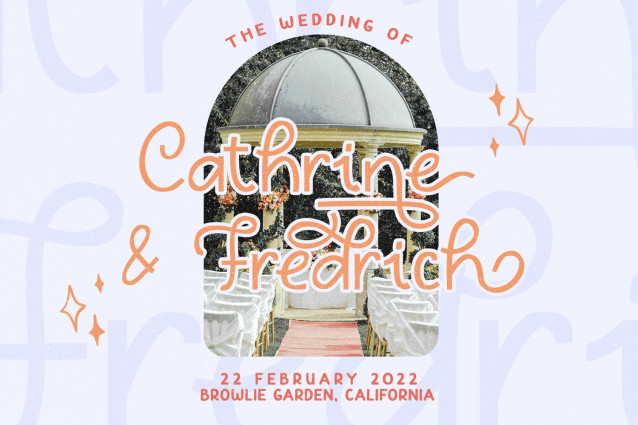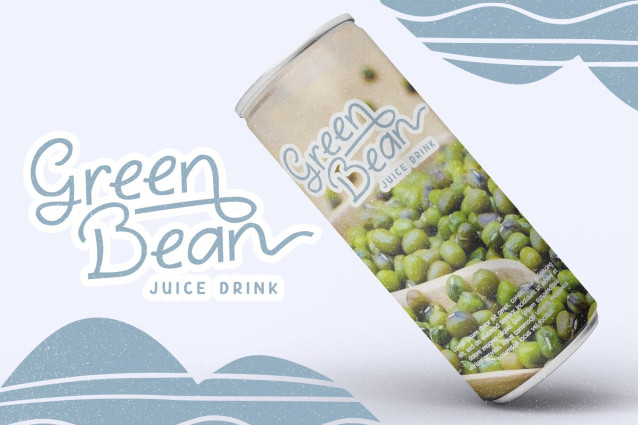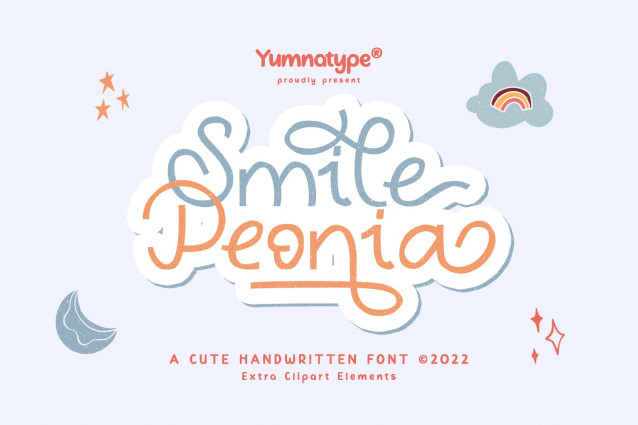
Smile Peonia Font
Smile Peonia Font is a delightful script font that radiates charm and warmth. The characters in SmilePeonia are imbued with cute and whimsical charm, making each letter feel like a little work of art. With rounded shapes and gentle curves, the font’s design adds a touch of softness and friendliness to your text. What sets Smile Peonia apart is its swinging ends, which add a playful and dynamic element to the font.